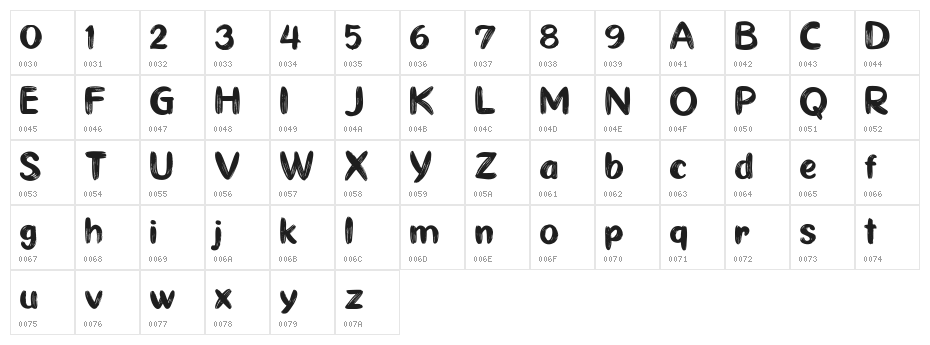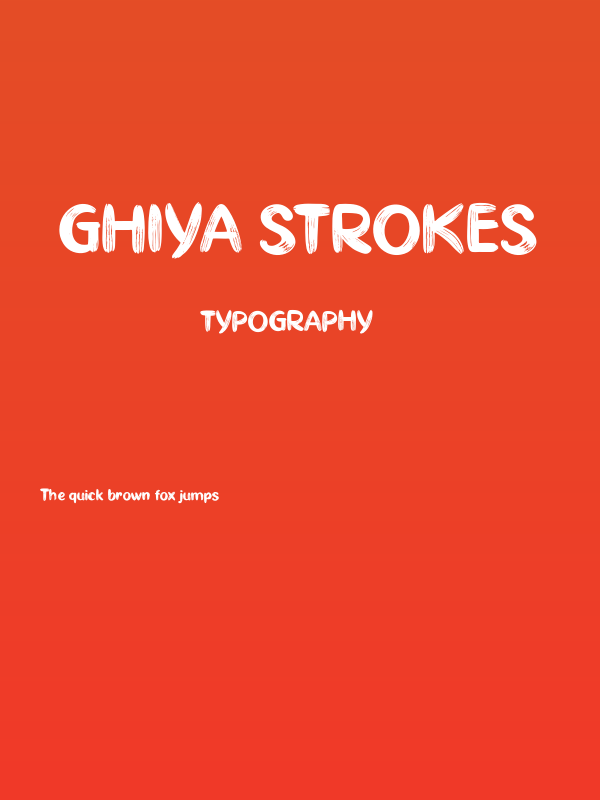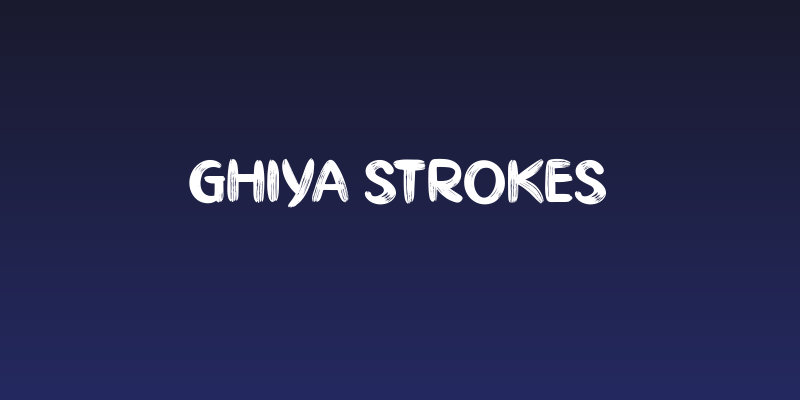
Ghiya Strokes Font
Ghiya Strokes Description
This font features a bold, brush-stroke style that exudes a sense of artistic flair and creativity. The characters are crafted with uneven, textured strokes that mimic the appearance of hand-painted letters. This gives the font a dynamic and energetic feel, making it ideal for projects that require a personal touch. The uppercase and lowercase letters maintain a consistent style, with rounded edges and a slightly irregular form that enhances its handcrafted look. The numerals and special characters are equally expressive, ensuring a cohesive appearance across all text elements.
| Overall Style | Artistic, Handcrafted |
| Proposed Projects | Ideal for artistic projects, branding, posters, and any design that requires a creative and personal touch. |